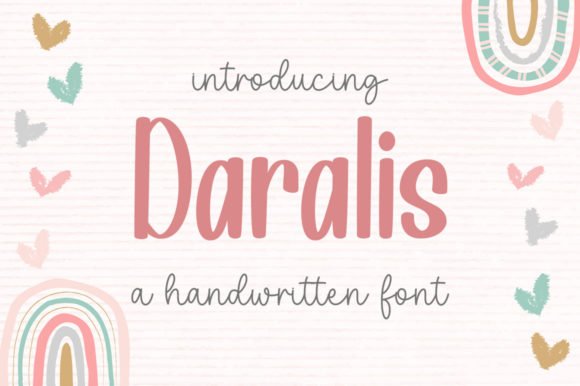
The Magic of Handwritten Fonts: Introducing Daralis
You know that feeling when a creative spark hits you and you just can’t wait to bring your idea to life? Maybe it’s a beautiful quote to adorn your living room wall, a custom invitation for your best friend’s wedding, or a stunning social media post that showcases your artistic side. Whatever it is, you want it to be perfect, don’t you? That’s where the right font can make all the difference.
Enter the Daralis Font, a casual and trendy handwritten font that’s perfect for adding a personal touch to your creative projects. Whether you’re a designer looking to add some flair to your designs or a DIY enthusiast wanting to create unique and eye-catching scripts, Daralis Font is the perfect tool to help you turn your ideas into stunning pieces of art. With its versatility and elegance, Daralis Font is a valuable asset for any designer looking to elevate their work.
Daralis Font Key Features
- Unique Characteristics: The font features a unique blend of modern and vintage elements, creating a distinctive aesthetic that sets it apart from other fonts.
- Language Support: Daralis Font supports a wide range of languages, including Latin, Cyrillic, and Greek scripts, making it a versatile choice for global designs.
- Font Weight: The font comes in a range of weights, from light to bold, allowing designers to achieve the perfect balance between readability and visual impact.
Daralis Font Review
As a designer, I was excited to dive into the Daralis font, and overall, I found it to be a solid addition to any design library. ✨ One of the standout features of this font is its unique blend of modern and elegant qualities. The smooth curves and precise lines make it perfect for creating a sophisticated and professional look.
- ✨ Unique blend of modern and elegant qualities
- ✨ Suitable for creating a sophisticated and professional look
- ✨ Great for use in titles, headings, and other prominent text elements
However, I did find a few limitations that might make it less ideal for certain projects. ⚠️ The font’s readability can be affected in smaller font sizes, and it may not be the best choice for body text. Additionally, the font’s weight range is limited, which might make it less versatile than some other options.
- ⚠️ Limited readability in smaller font sizes
- ⚠️ Not ideal for body text
- ⚠️ Limited weight range
Overall, I would recommend the Daralis font for projects where a touch of elegance and sophistication is desired. While it may have some limitations, its unique qualities make it a great choice for designers looking to add some visual interest to their work.
Getting the Most Out of Daralis Font
To get the most out of Daralis Font, use it to create headings and titles for your designs. The font’s elegant and sophisticated style makes it perfect for use in luxury branding, fashion, and high-end design projects.
Daralis Font is commonly used in:
- Luxury branding
- Fashion design
- High-end marketing materials
Alternatives to Daralis Font for Designers
Montserrat is a sans-serif font designed by Julieta Ulanovsky. It’s a modern and geometric font perfect for use in urban and industrial designs. It’s a great alternative to Daralis Font for designers who want a clean and minimalist look. Montserrat is more geometric and modern compared to Daralis, which has a more vintage feel.
Open Sans is a sans-serif font designed by Steve Matteson. It’s a highly readable and versatile font suitable for a wide range of designs, from body text to headings. Open Sans is a great alternative to Daralis Font for designers who want a clean and modern look without the vintage feel of Daralis. Open Sans is more rounded and friendly compared to Daralis.